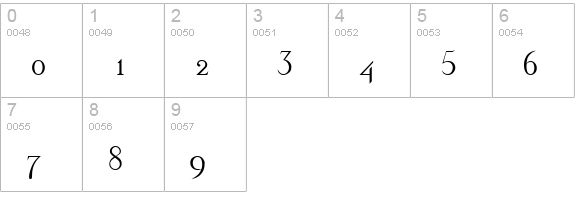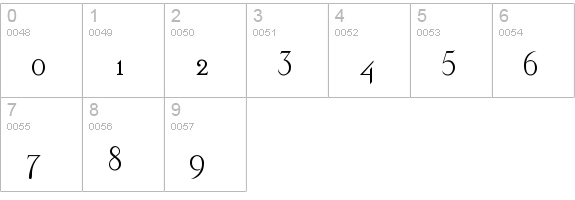
Dickens Regular is the standard, neutral variant in the Dickens typeface family \xE2\x80\x94 well suited to general body text, paragraphs, and standard typographic work.
Dickens Regular font is a classic and timeless typeface that exudes elegance and sophistication. With its clean lines and readable design, Dickens Regular is perfect for a wide range of projects, from formal invitations to professional documents. The font strikes the perfect balance between traditional and modern, making it versatile and suitable for various design needs. Best of all, Dickens Regular font is available for free download at FontsMarket.com. Whether you are a graphic designer, student, or hobbyist, you can easily access this high-quality font to enhance your creative projects. Don't miss out on the opportunity to elevate your designs with the timeless beauty of Dickens Regular font, now freely available for you to download and enjoy.